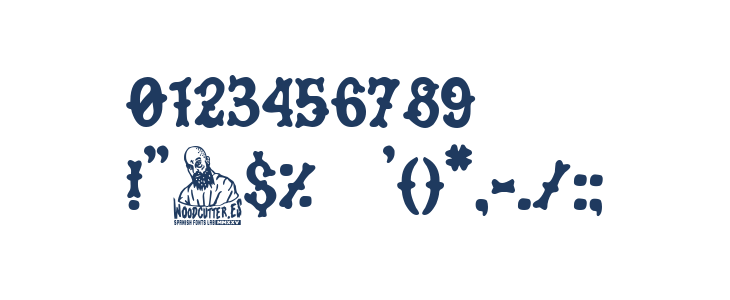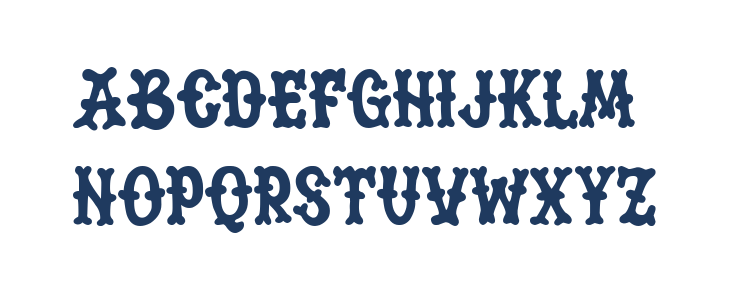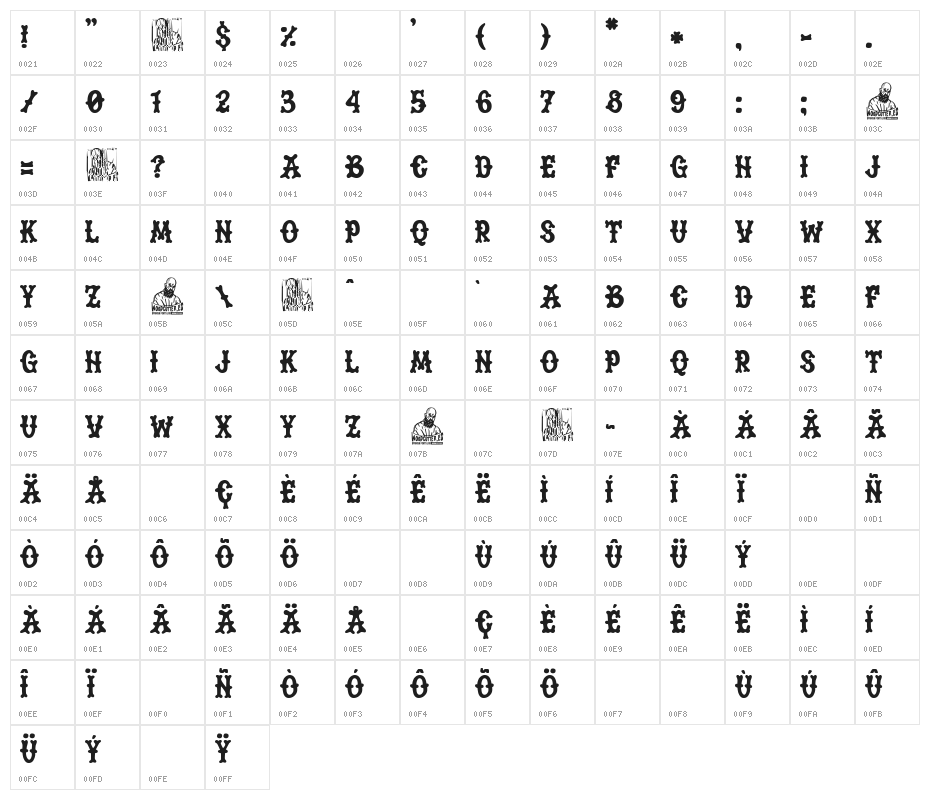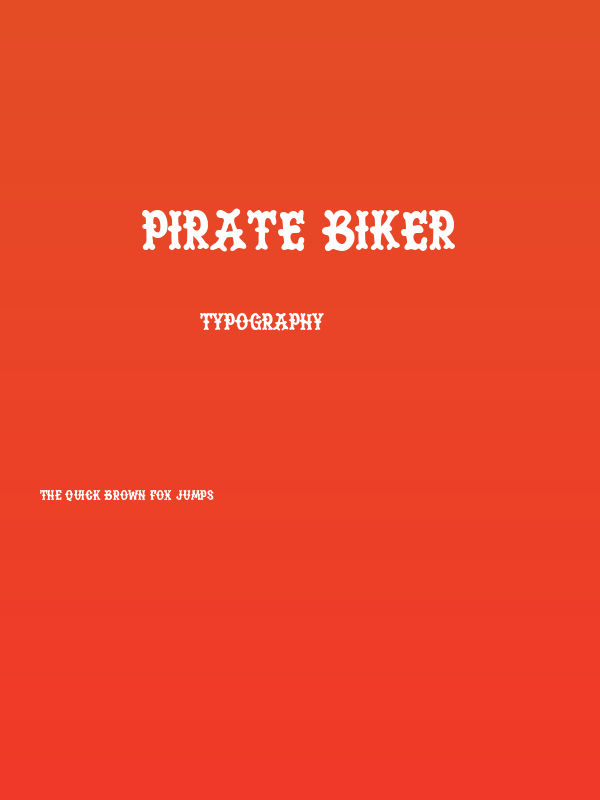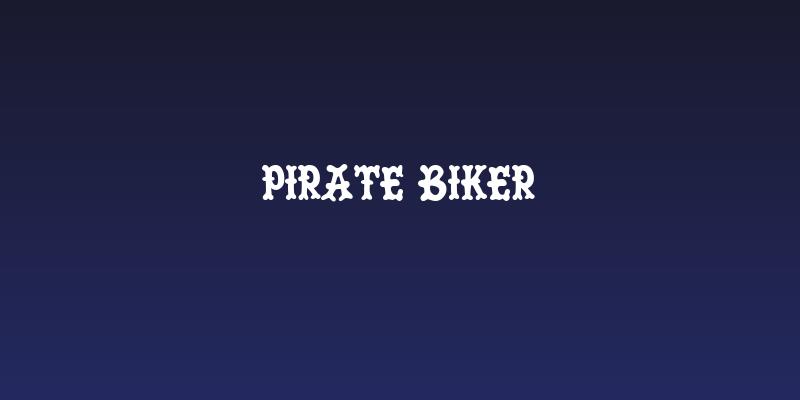
Pirate Biker Font
Pirate Biker Description
A bold, decorative display font with rugged, irregular edges and playful, pirate-inspired details. The characters have a heavy weight and exaggerated serifs, giving a vintage, adventurous feel.
| Overall Style | Decorative, Vintage, Playful |
| Use Case | Headlines, Posters, Logos, Themed Graphics |
| Proposed Projects | Event posters, themed party invitations, signage for pirate or biker events, book covers, branding for adventure or novelty products. |